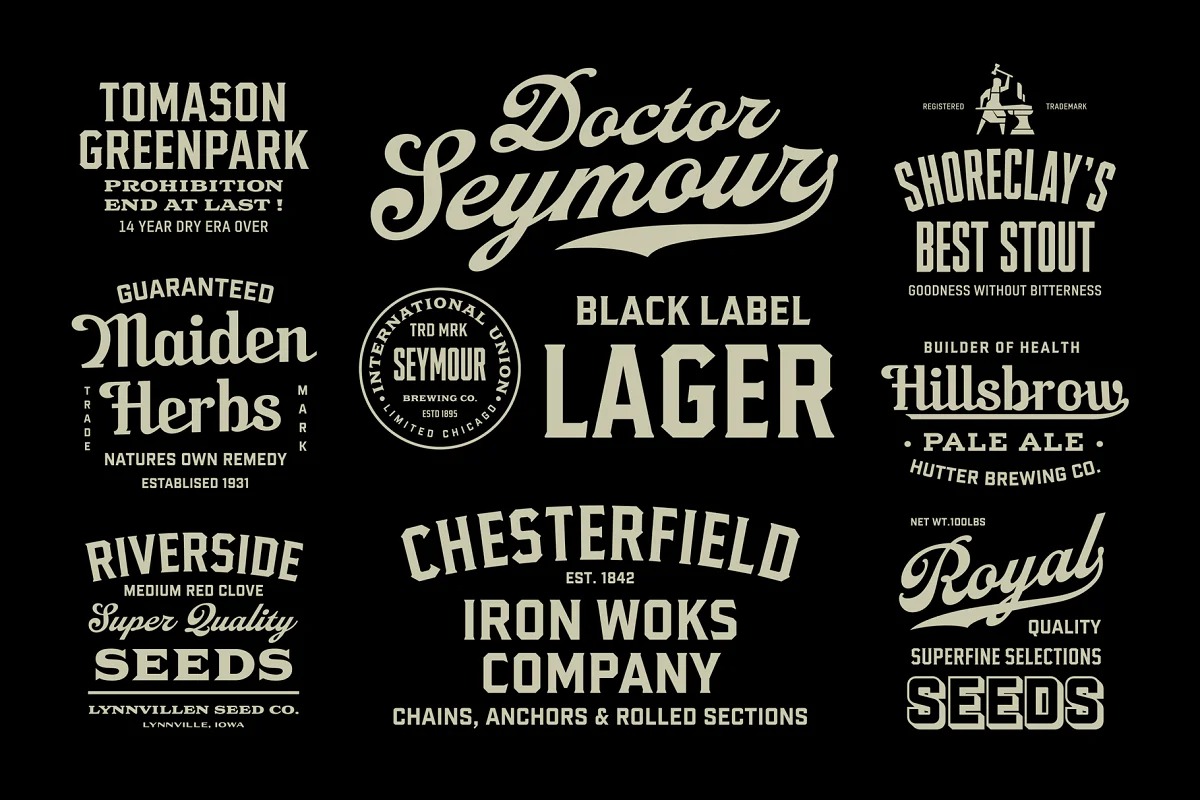
EFCO Fairley Script Font
This is an elegant bold script font created by Ilhamherry with retro look. The script version also combined with ending swashes, use stylistic alternates from 0 to 9 to work with them. The Inspiration for this collection comes from today’s graphic design trends. EFCO Fairley Font Collection was designed carefully to create dozens of font combinations and get really unique typographic for your project. It would be a perfect choice for posters, logos, t-shirt and magazine prints, eye-pleasing typographic designs and more.